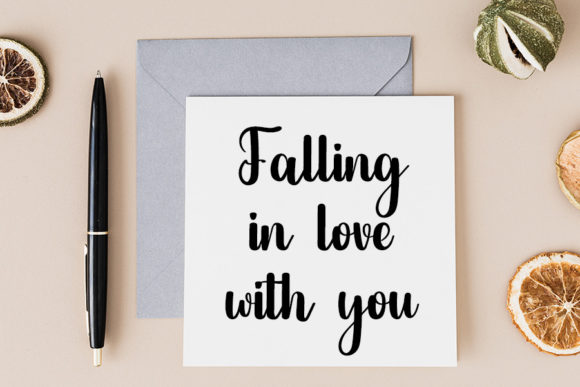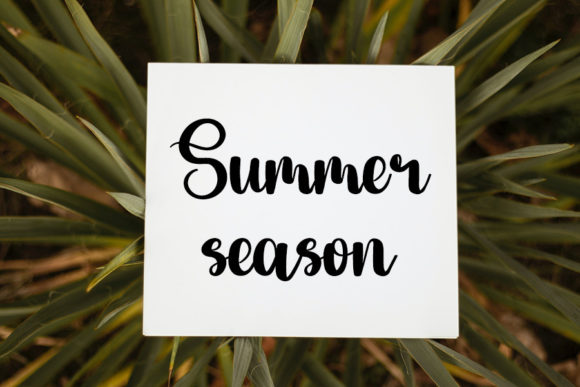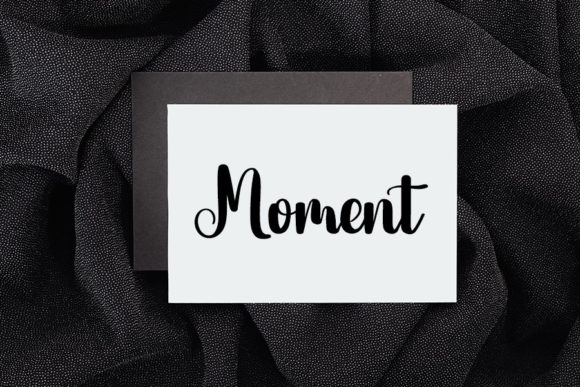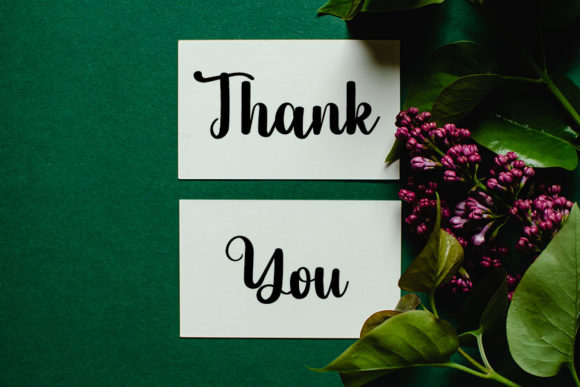
The Perfect Catch: Discovering the Charm of Fishing Grounds Font
I’ll never forget the time I was working on a branding project for a new boutique outdoor gear company. I had spent hours pouring over design concepts, but something was missing – the right font. That’s when I stumbled upon Fishing Grounds, a lovely handwritten font that instantly elevated my design. Its elegant and curvy lines added a touch of sophistication, making the brand stand out in a crowded market. If you’re a designer, crafter, or creative hobbyist looking for a font that will make your work shine, you’re in the right place!
Fishing Grounds has quickly become one of my go-to fonts, and here’s why:
- ✨ Elegant and curvy lines that add a touch of sophistication to any design
- ✅ Perfect for product packaging, branding projects, magazine covers, social media, and weddings
- 💫 Highly versatile and works well with a variety of design styles
- 📸 Beautifully crafted to make your work stand out
While Fishing Grounds is an excellent font, it’s not without its quirks:
- 🤔 Some users may find the font a bit too delicate for certain design applications
- ⚠️ Limited availability of stylistic alternates, which may limit its use in certain projects
The Story Behind Fishing Grounds
Fishing Grounds was designed with the intention of creating a font that would evoke a sense of elegance and sophistication. The designer aimed to craft a font that would be perfect for a variety of design applications, from product packaging to wedding invitations. With its beautiful, curvy lines and highly legible design, Fishing Grounds has become a popular choice among designers and crafters.
| Font Name | Fishing Grounds Font |
| Author | Kongsi.Co |
| What is Fishing Grounds font best used for? | Fishing Grounds is perfect for product packaging, branding projects, magazine covers, social media, weddings, and more. |
| Does Fishing Grounds support OpenType features? | Yes, Fishing Grounds supports OpenType features, including ligatures and stylistic alternates. |